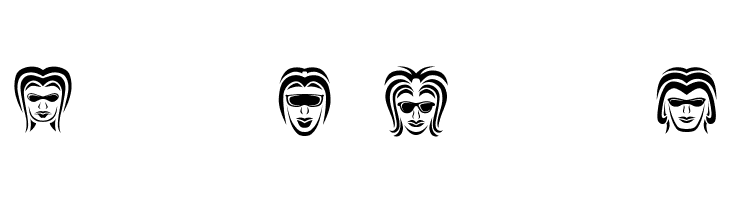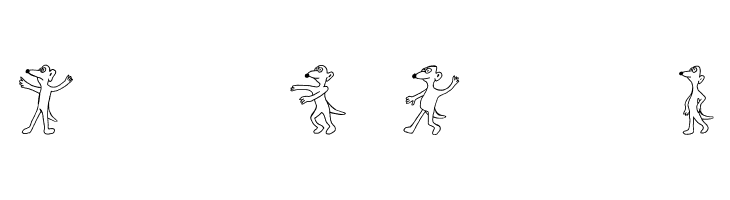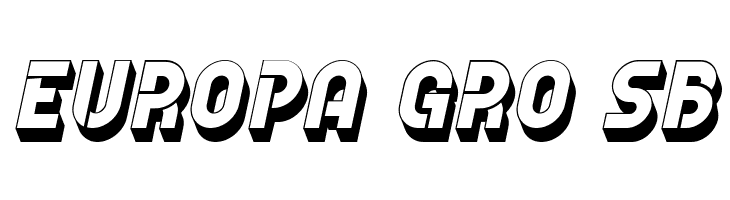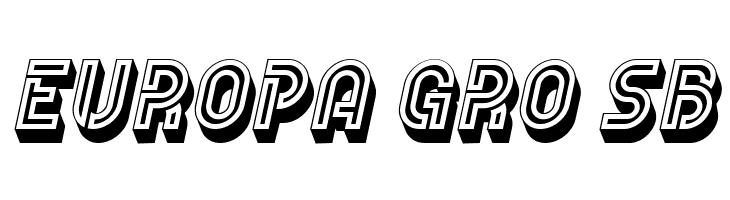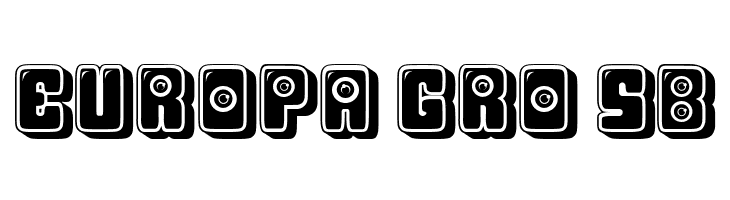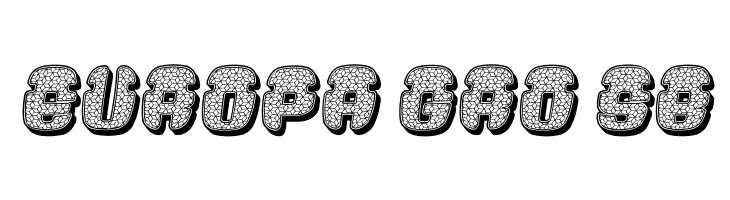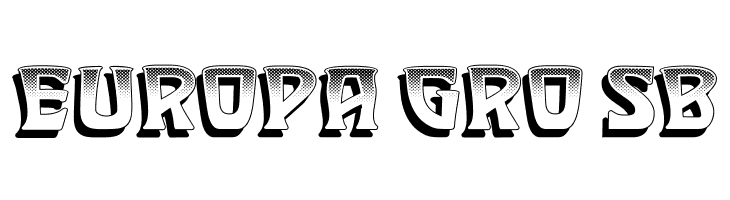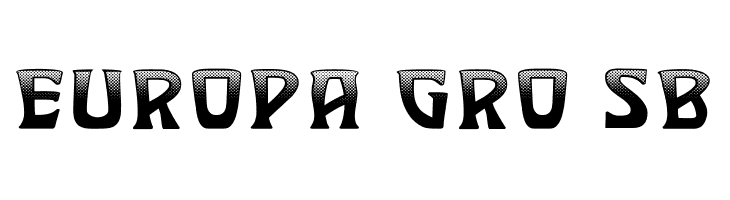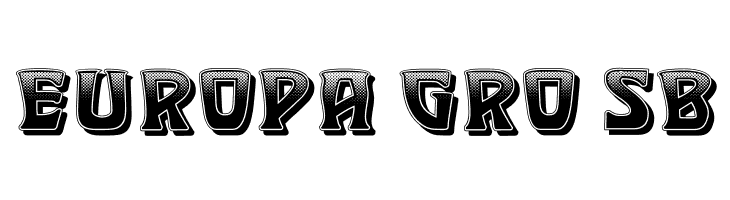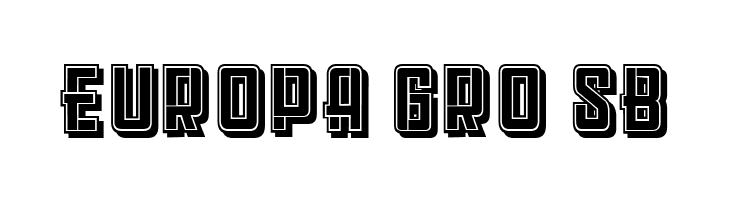
( Vladimir Nikolic - www.coroflot.com/vladimirnikolic )
Elegant serif font with high contrast and sharp serifs.
A bold, 3D hollow font with a geometric and dynamic style.
A bold, 3D font with a geometric, blocky style and shadow effect.
A bold, 3D geometric font with a retro-futuristic style and shadow effects.
A bold, geometric font with a three-dimensional shadow effect, ideal for modern designs.
Ornamental font with decorative tile patterns for each character.
A bold, playful font with thick, rounded edges and a strong outline.
A whimsical, decorative font with characters resembling abstract creatures.
A bold, decorative font with a 3D geometric design and sharp angles.
Decorative font made of illustrated female faces.
( Vladimir Nikolic - www.coroflot.com/vladimirnikolic )
A decorative collection of stylized face icons with unique features.
A bold, modern sans-serif font with geometric precision.
A detailed set of war-themed icons featuring military vehicles and weapons.
A modern, geometric hollow font with bold outlines and a clean aesthetic.
A bold, geometric font with a modern, three-dimensional style.
A bold, geometric font with a three-dimensional outline, ideal for impactful headlines.
A bold, decorative font with a vintage, three-dimensional style.
A bold, textured font with sharp, angular lines and a dynamic, edgy style.
A bold, medieval-inspired font with sharp, angular edges and a strong presence.
A decorative pattern featuring stylized eyes within geometric shapes.
A bold, distressed font with an industrial, vintage look.
A bold, angular serif font with a dramatic and artistic flair.
A bold, decorative font with a 3D effect and vintage comic book style.
A bold, geometric font with a three-dimensional effect and sharp angles.
A set of bold, clear weather symbols for versatile use.
A bold, decorative font with intricate detailing and vintage charm.
( Nikukurin - nikukurin.deviantart.com/ )
A bold, 3D outline font with a Western-inspired style.
A bold, decorative font with a Western theme and three-dimensional appearance.
A bold, futuristic font with geometric and angular design elements.
A bold, geometric font with a three-dimensional effect and strong contrast.
A bold, geometric font with a 3D layered outline and futuristic style.
A playful, bold font with textured, three-dimensional characters.
A whimsical, cartoon-like font featuring expressive mouse characters.